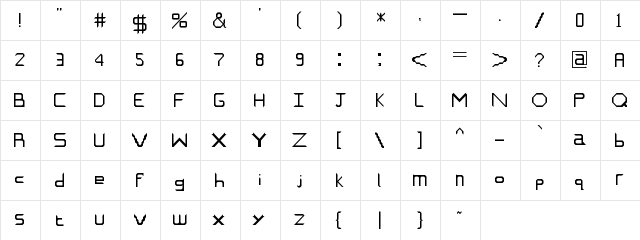
WF722 Regular
| Designer | WOLFBMXer |
Design Context for WF722 Typeface
WF722 is a composed and adaptable typeface that performs quietly and consistently across a wide range of design contexts.